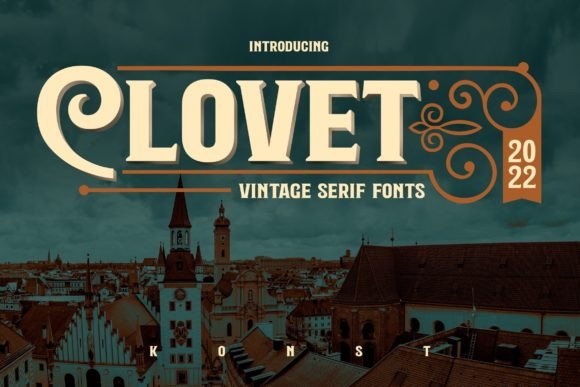
In the realm of typography, where words dance and letters flow, there resides a font of exquisite elegance and timeless charm: Clovet. A serif font, Clovet is a masterful fusion of tradition and modernity, beckoning you to embark on a journey through the annals of history.
Crafted by the skilled hands of konstantinestudio, Clovet possesses an air of sophistication that exudes both strength and grace. Its bold strokes and vintage charm evoke a sense of nostalgia, transporting you to an era of classicism and refinement.
Clovet is not merely a collection of letters; it is an artistic expression, a symphony of curves and lines that captivates the eye and stirs the soul. Its drop caps, reminiscent of ornate manuscripts, add a touch of elegance to any design, transforming ordinary text into captivating works of art.
With Clovet as your creative companion, your signage designs will command attention, your sign painting concepts will exude artistry, and your book covers will possess an aura of literary excellence. Logos and branding infused with Clovet's timeless beauty will leave an indelible mark on the minds of your audience.
But Clovet's versatility extends far beyond traditional design realms. Its ornamental flourishes lend an air of enchantment to decorative designs, adding a touch of whimsy and wonder to your creative projects.
Clovet is more than just a font; it is an invitation to explore the boundless possibilities of visual communication. Its timeless elegance transcends trends and fads, ensuring that your designs remain captivating and relevant for years to come.
With Clovet, you possess the power to evoke emotions, tell stories, and leave a lasting impression. Whether you seek to create nostalgic branding, elegant signage, or captivating book covers, Clovet is your font of choice.